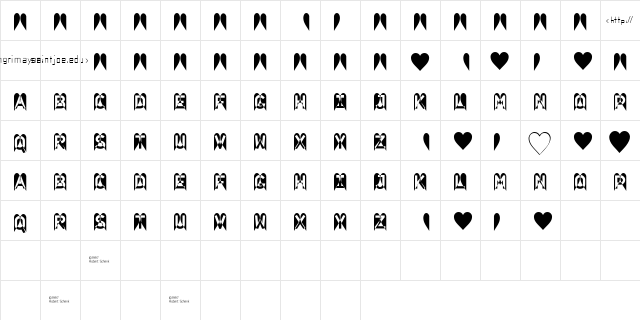
Complete VDMassacre Regular glyph index. Displaying only characters natively supported by VDMassacre Regular font.
VDMassacre is a composed and adaptable typeface that performs quietly and consistently across a wide range of design contexts.